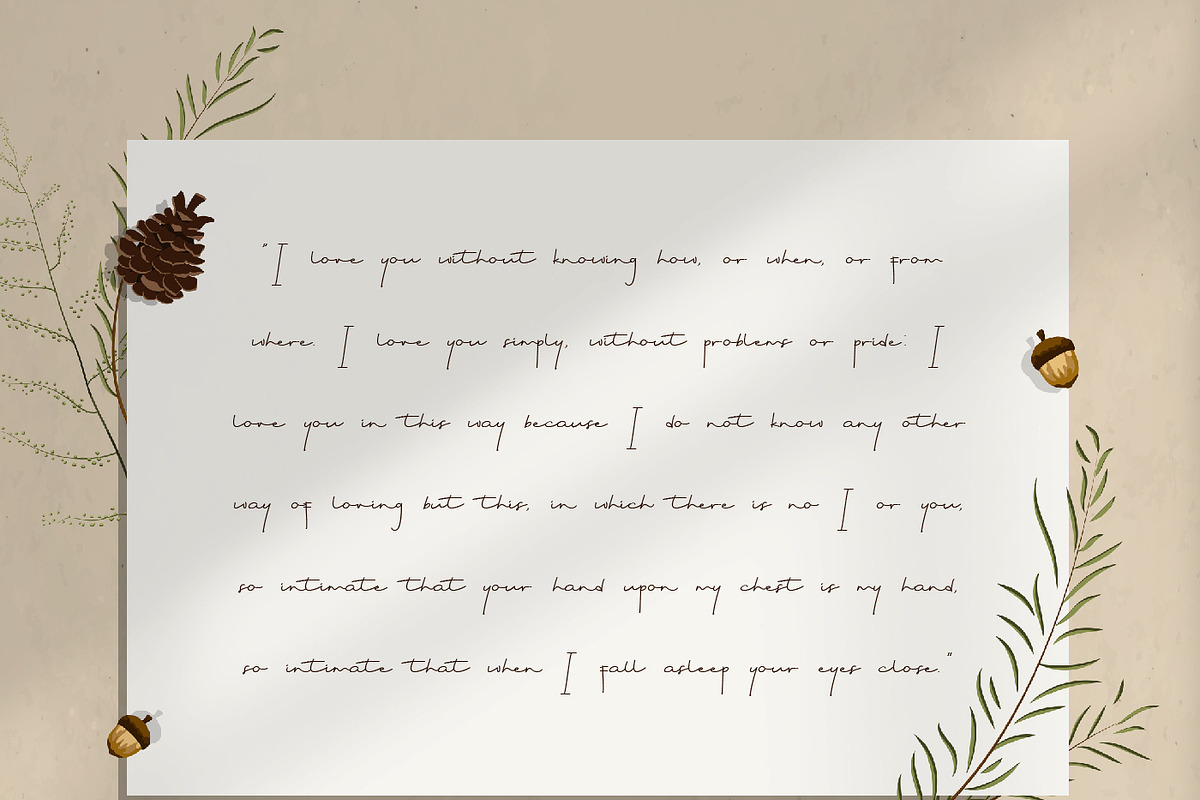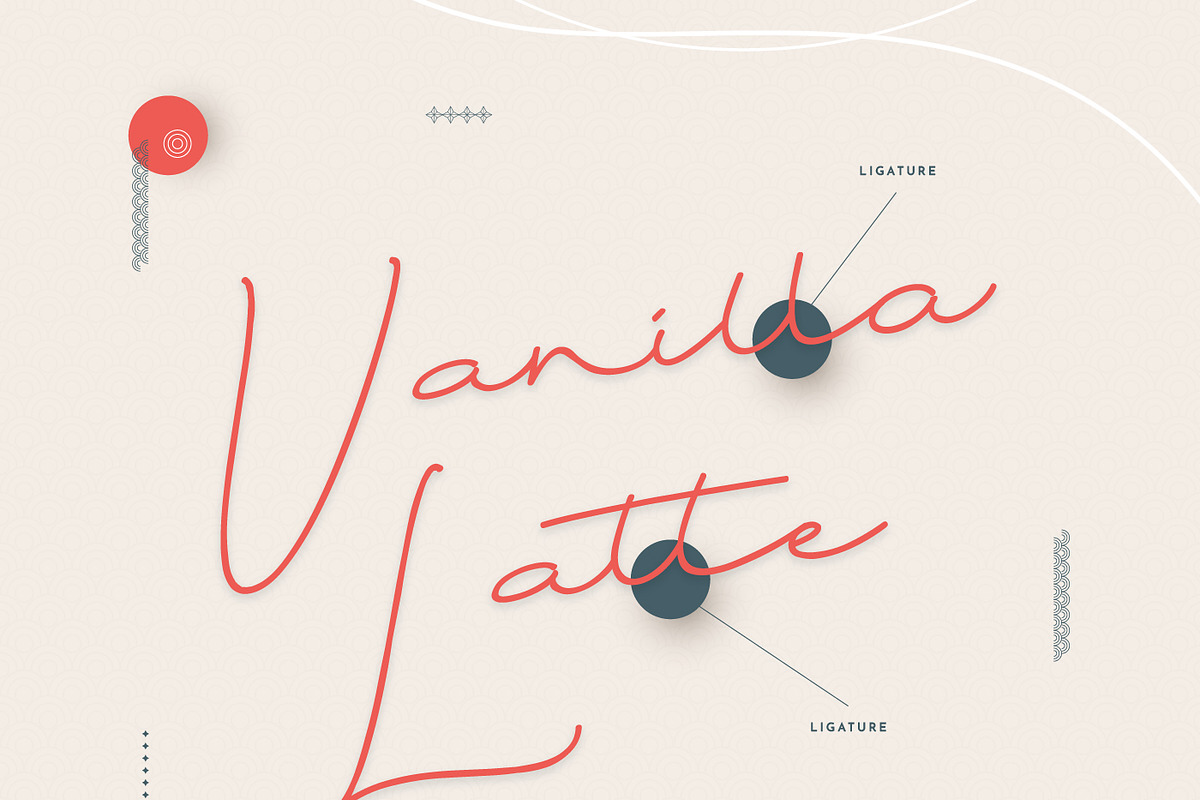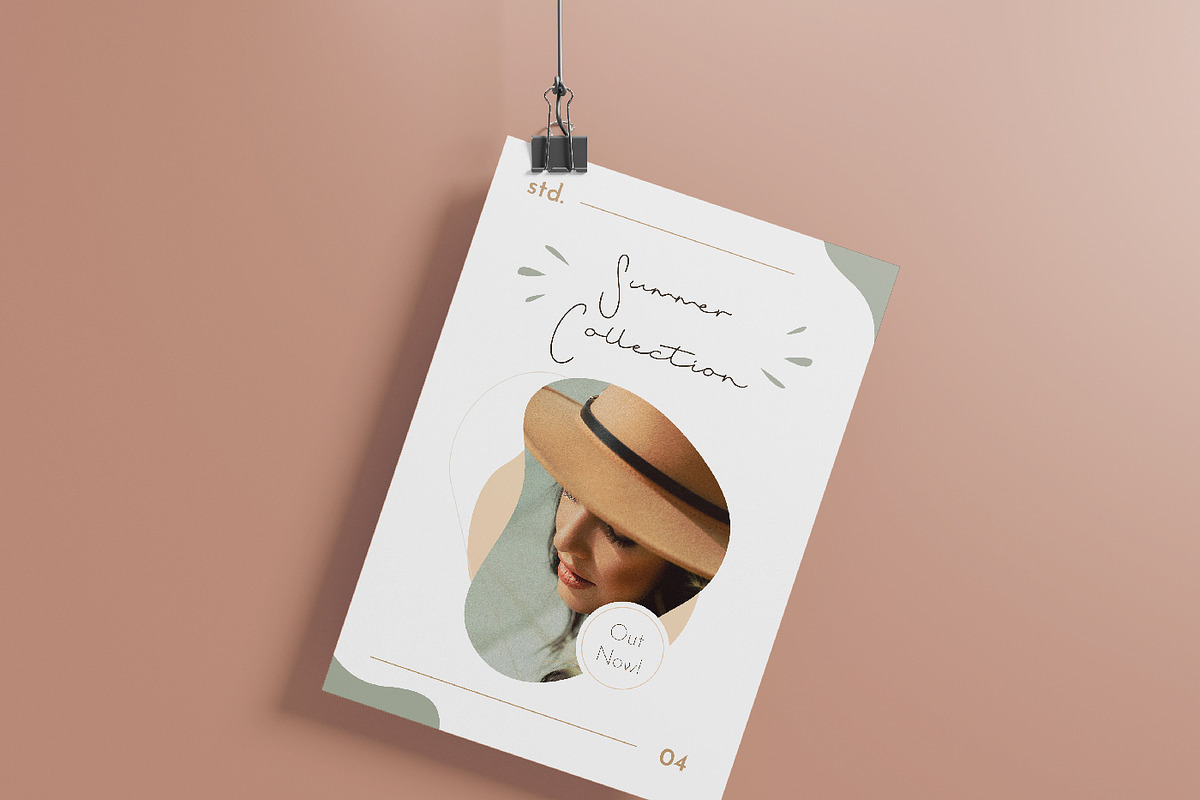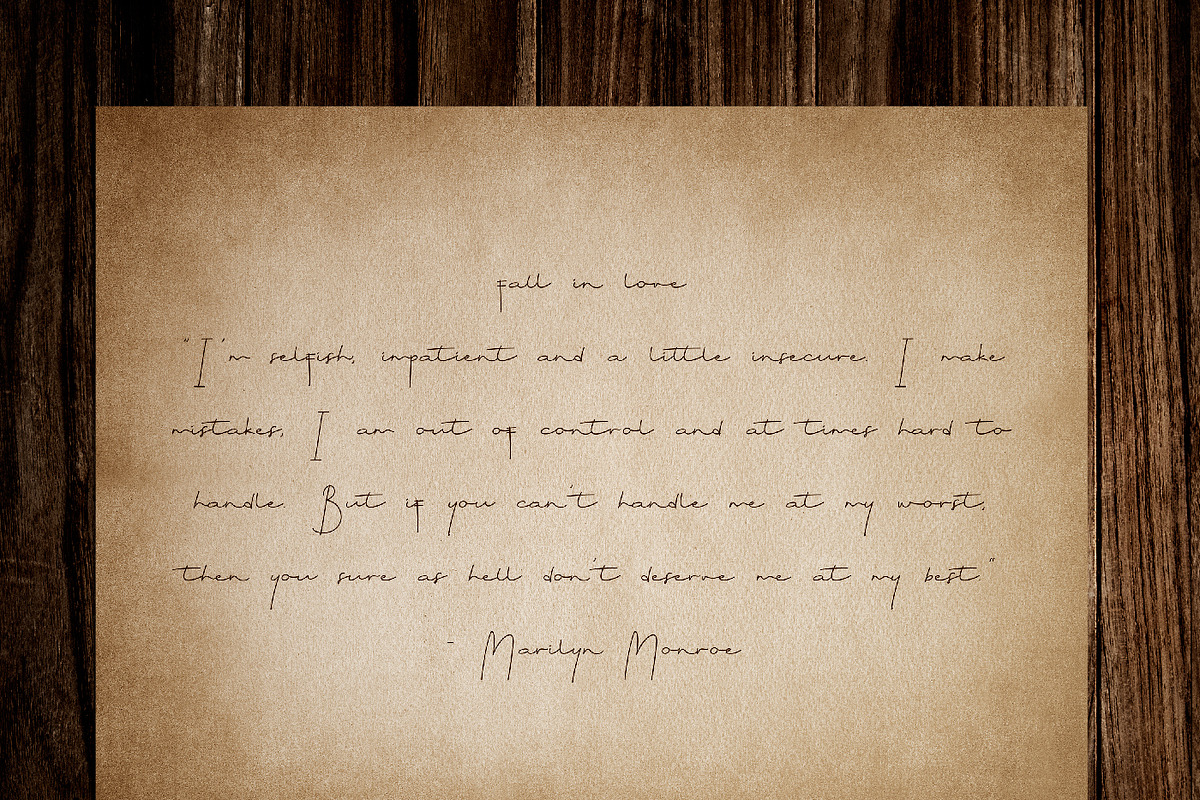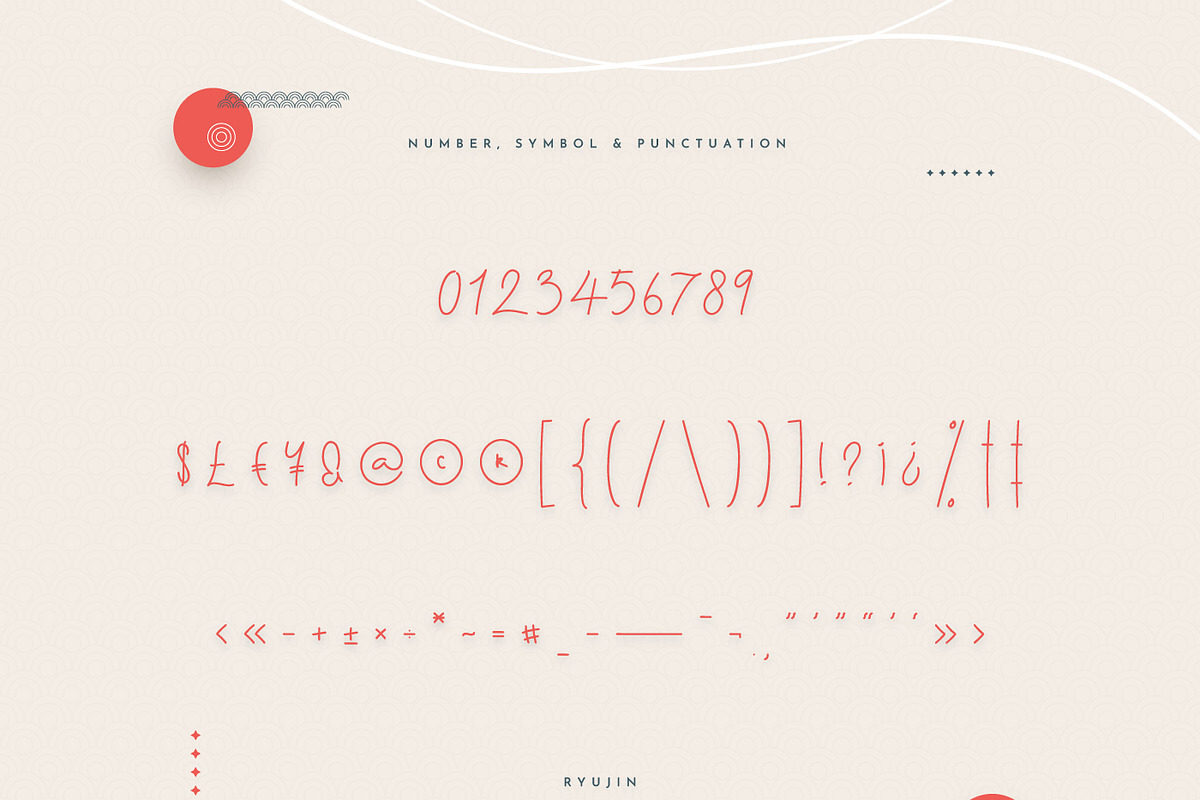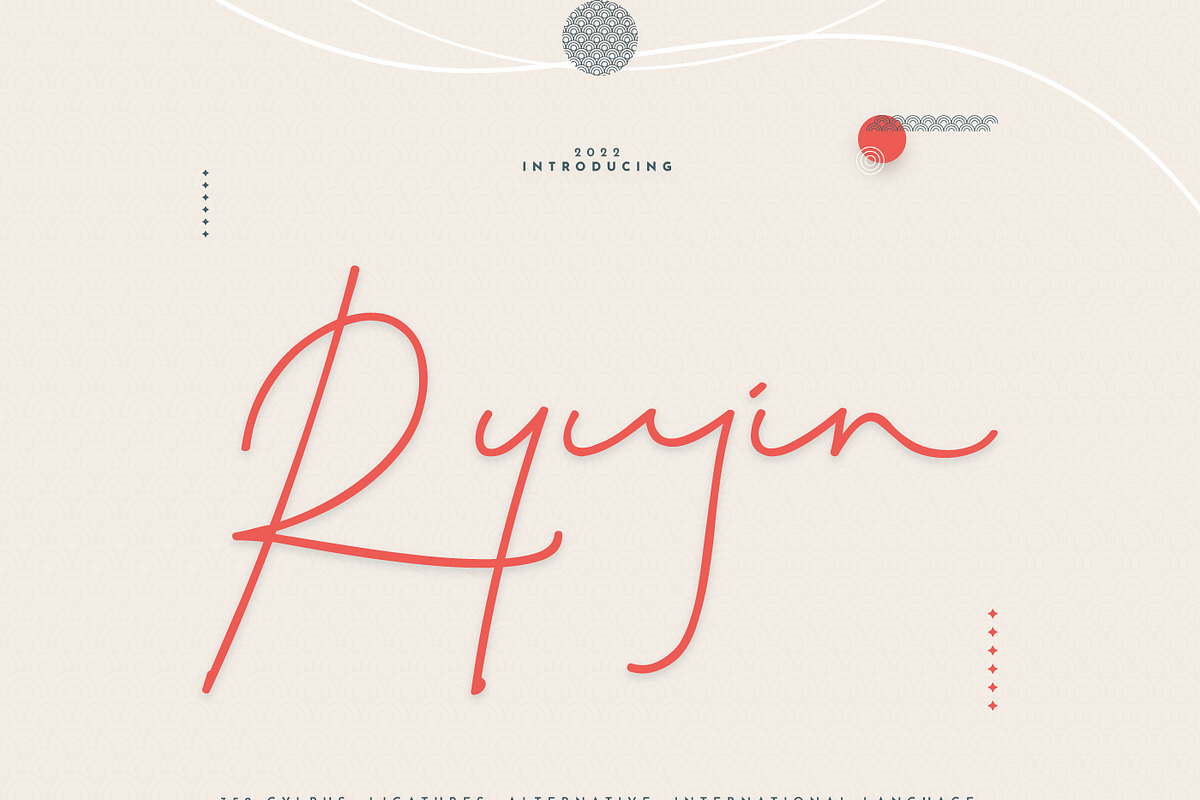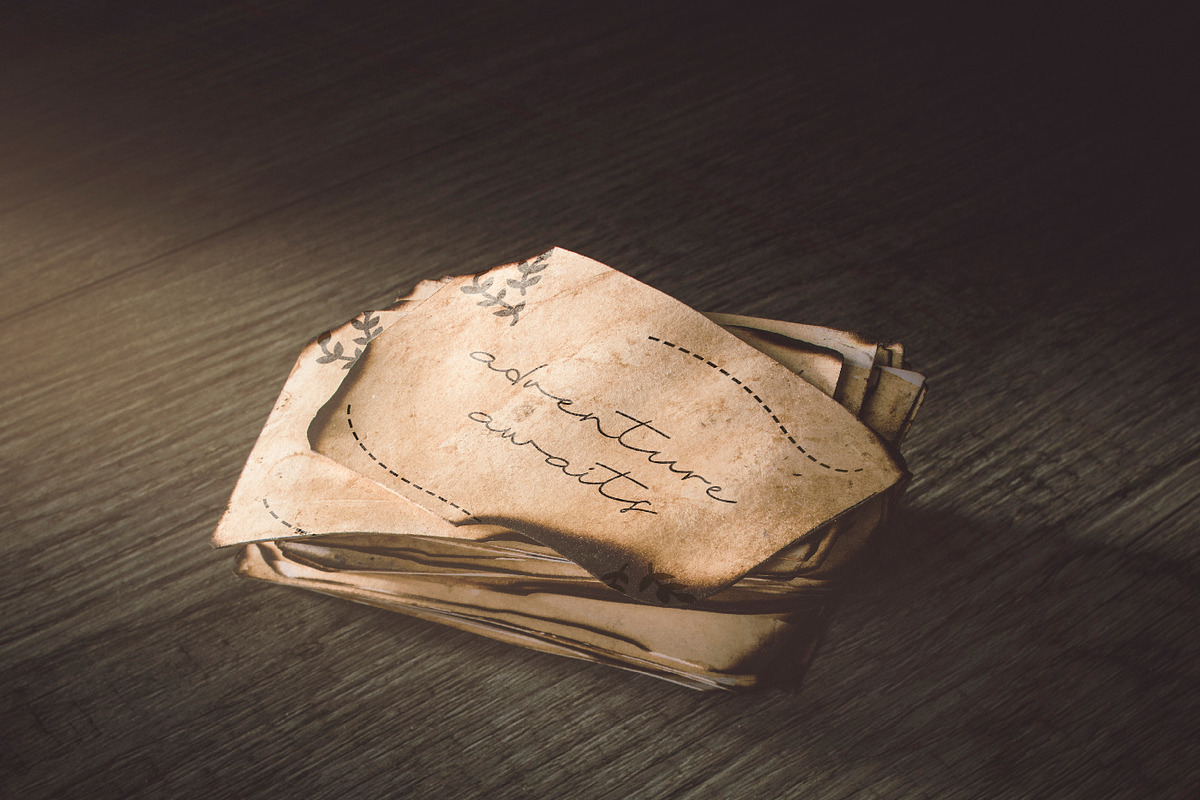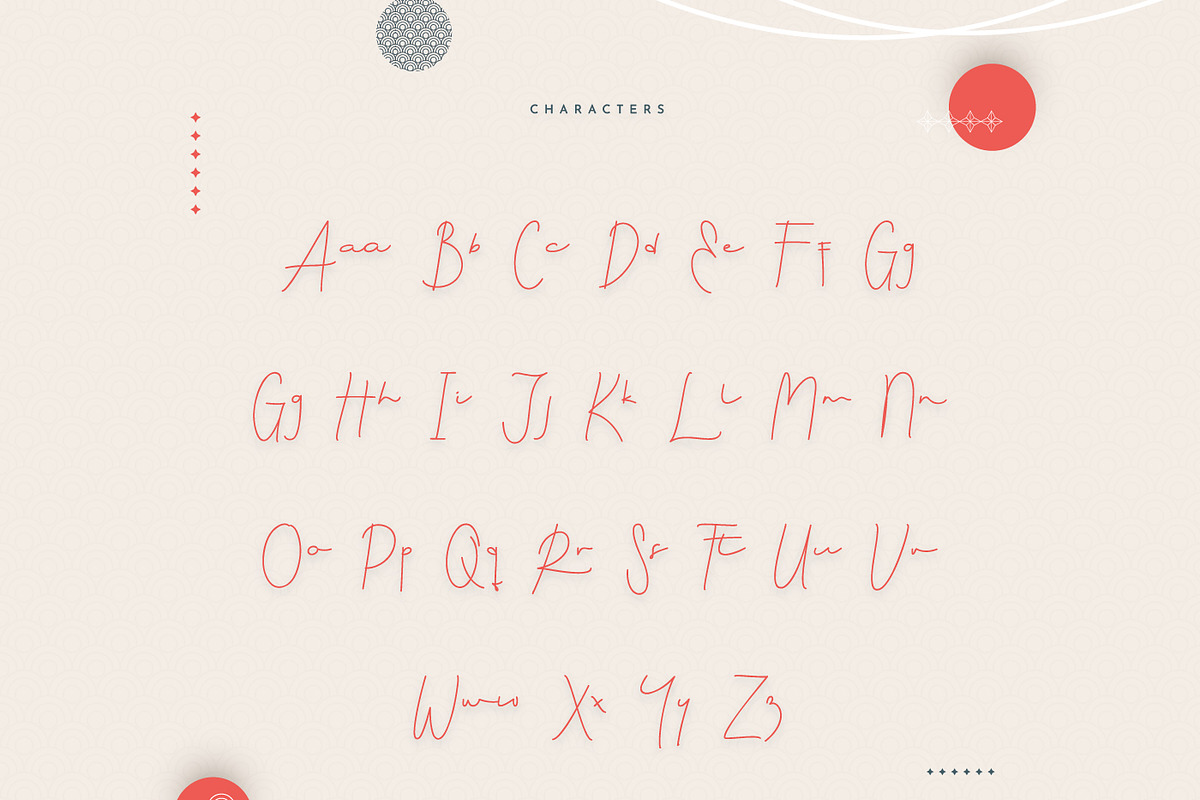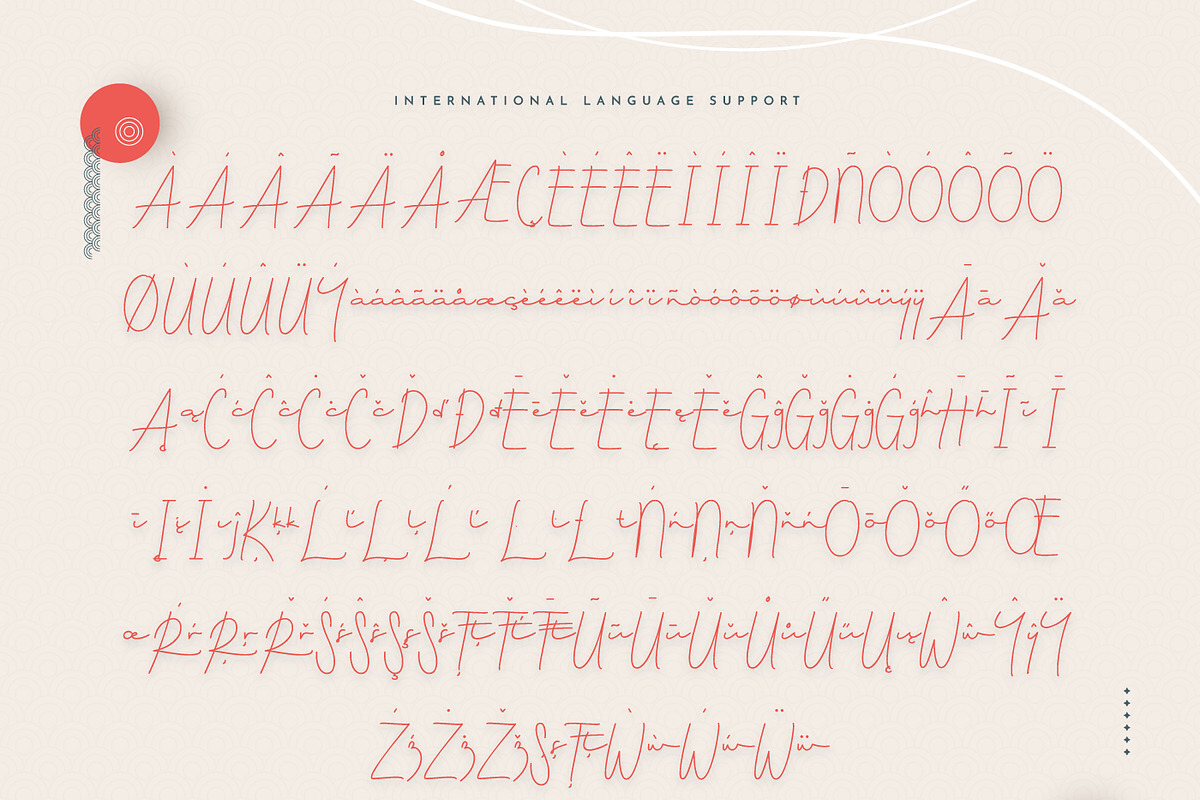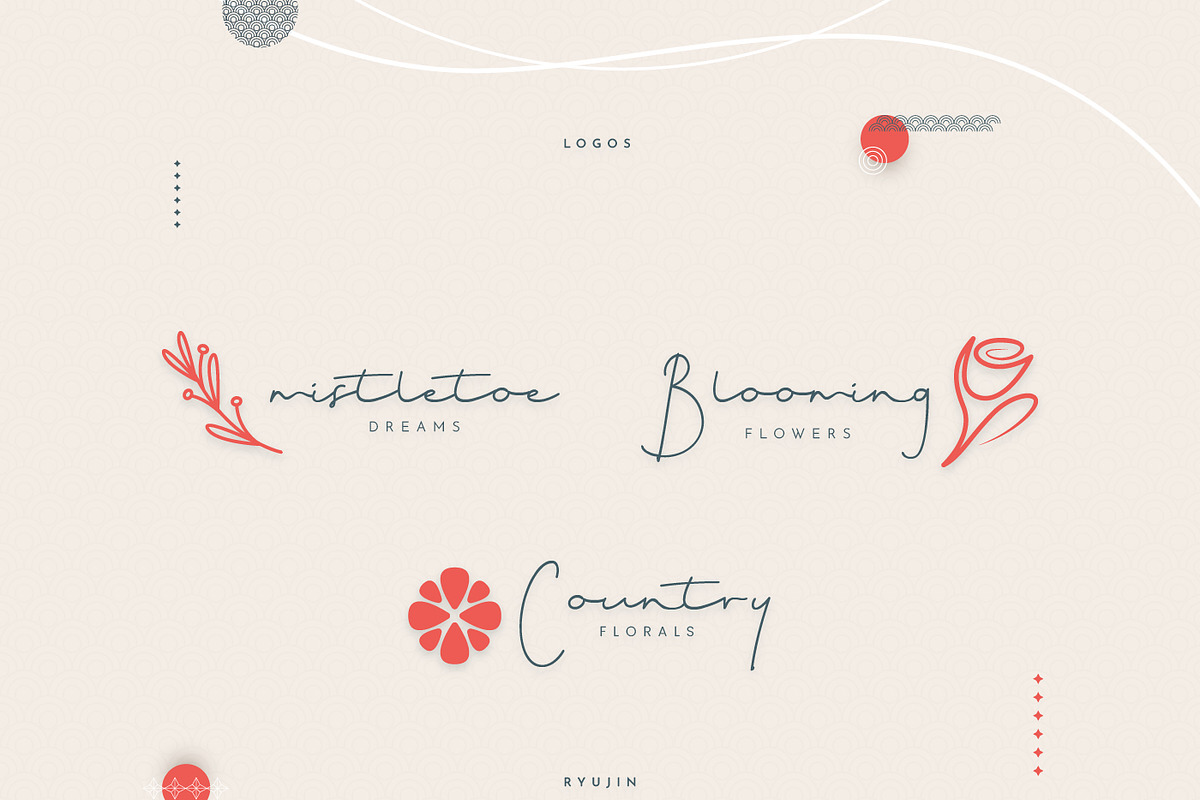
Ryujin Script Handwriting
Ryujin is the latest Script Font made with handwriting-style. Untidy with skinny body make "Ryujin" is giving us boyish and classic feels. This font is perfect for Lettering, invitation card, wedding projects, and any project that need handwriting taste. "Ryujin" will make your product design look really extraordinary.
- OpenType Features (Stylistic Set)